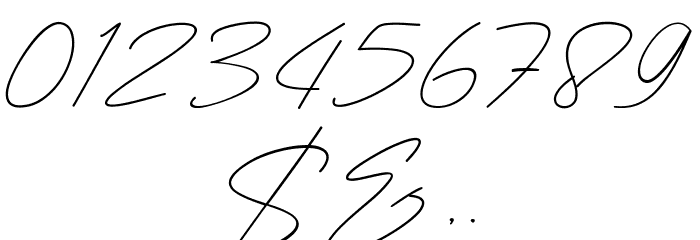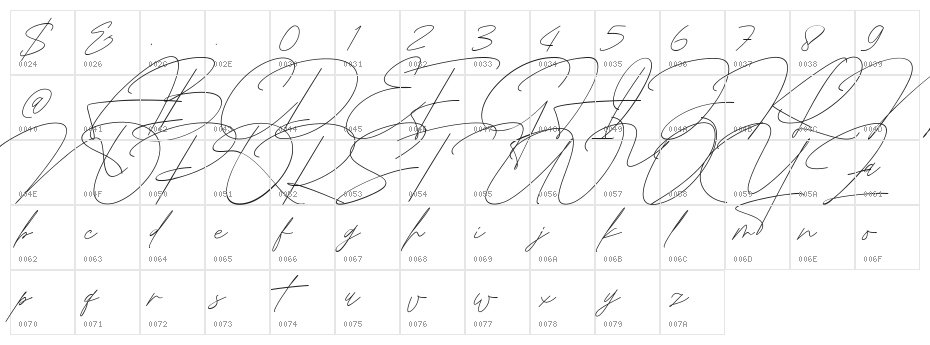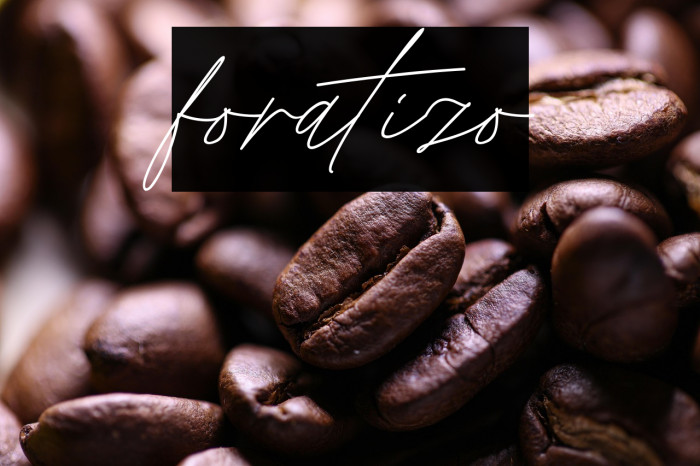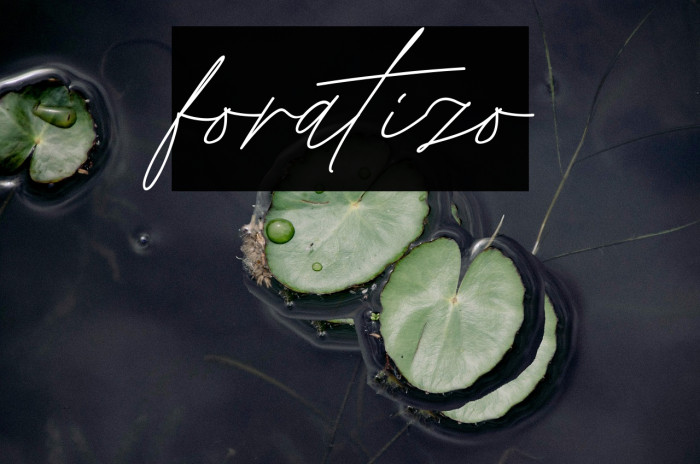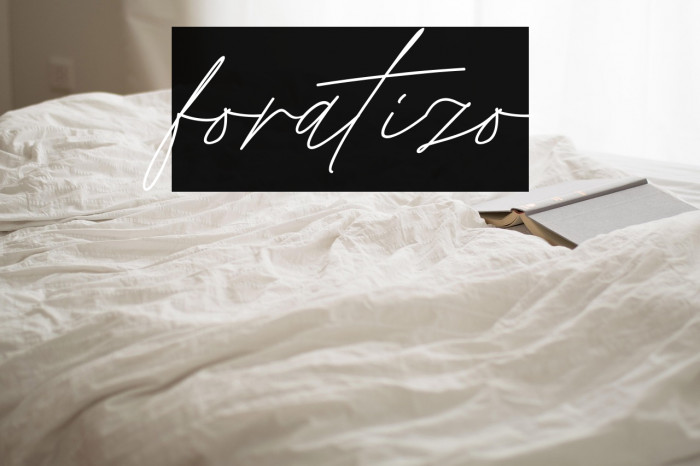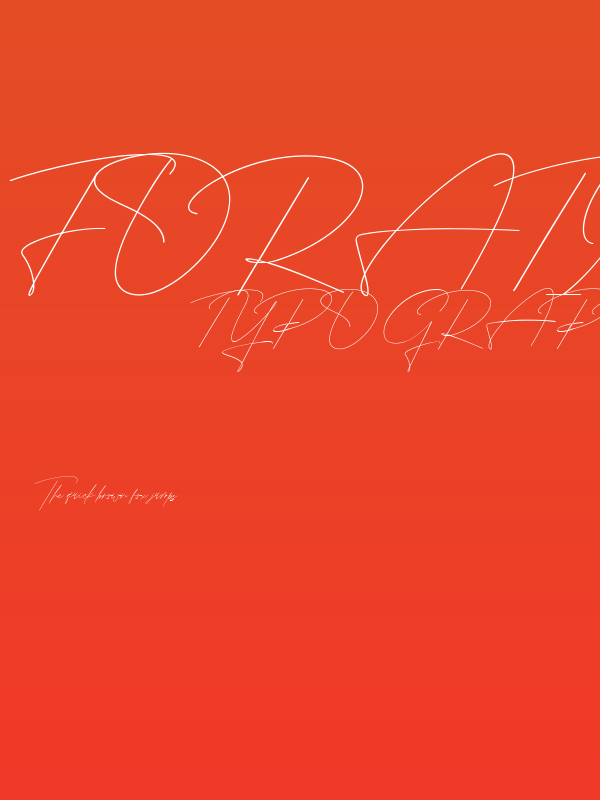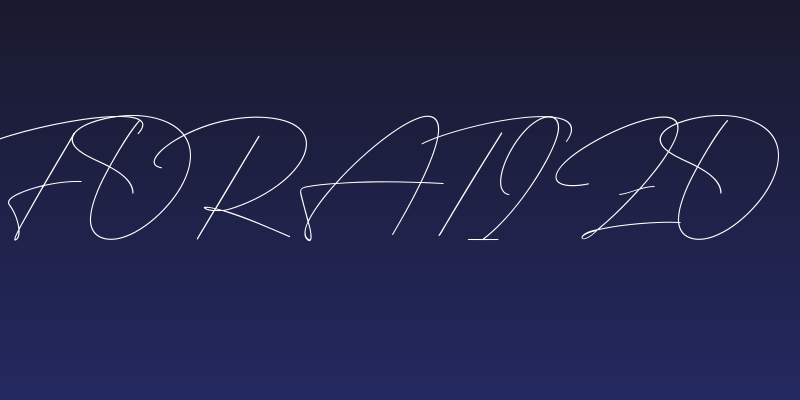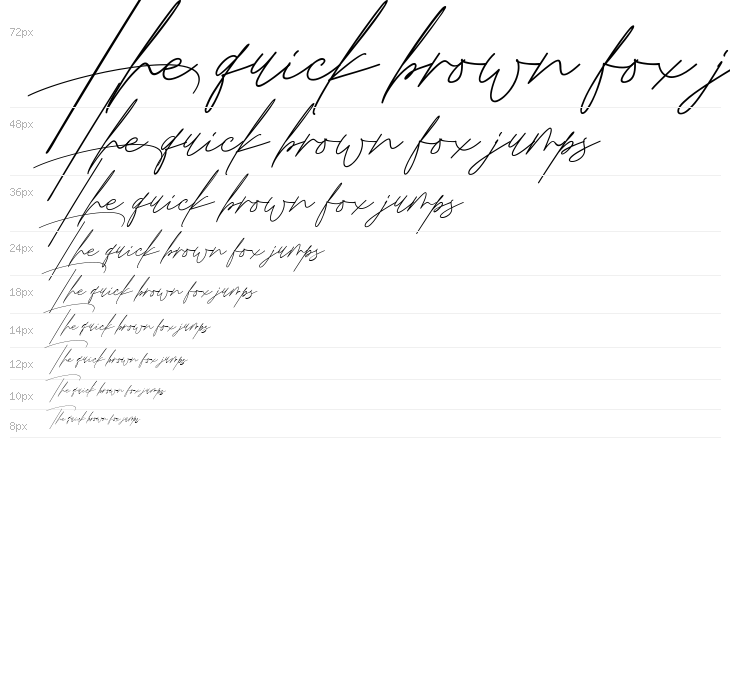
foratizo Font
foratizo Description
This font features a fluid and elegant script style, characterized by its smooth, flowing lines and cursive nature. The uppercase letters exhibit a graceful, interconnected design, while the lowercase letters maintain a consistent, handwritten appearance. The numerals and special characters follow the same fluidity, enhancing the overall cohesive look. The strokes are thin and delicate, contributing to a sophisticated and refined aesthetic. This font is ideal for projects that require a personal touch, such as invitations, greeting cards, or branding materials that aim to convey elegance and style.
| Overall Style | Elegant, Sophisticated |
| Proposed Projects | Ideal for invitations, greeting cards, branding materials, and elegant design projects. |